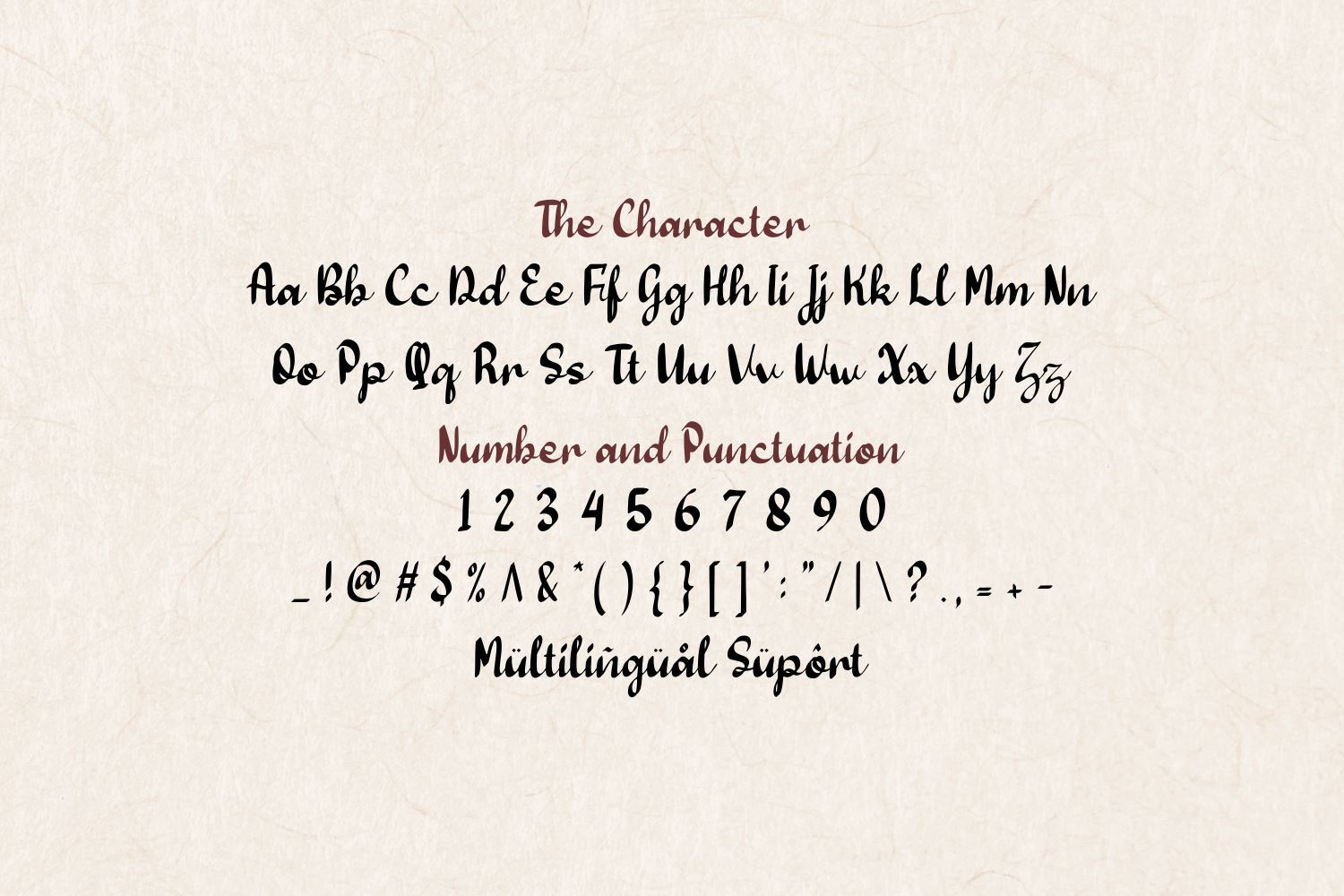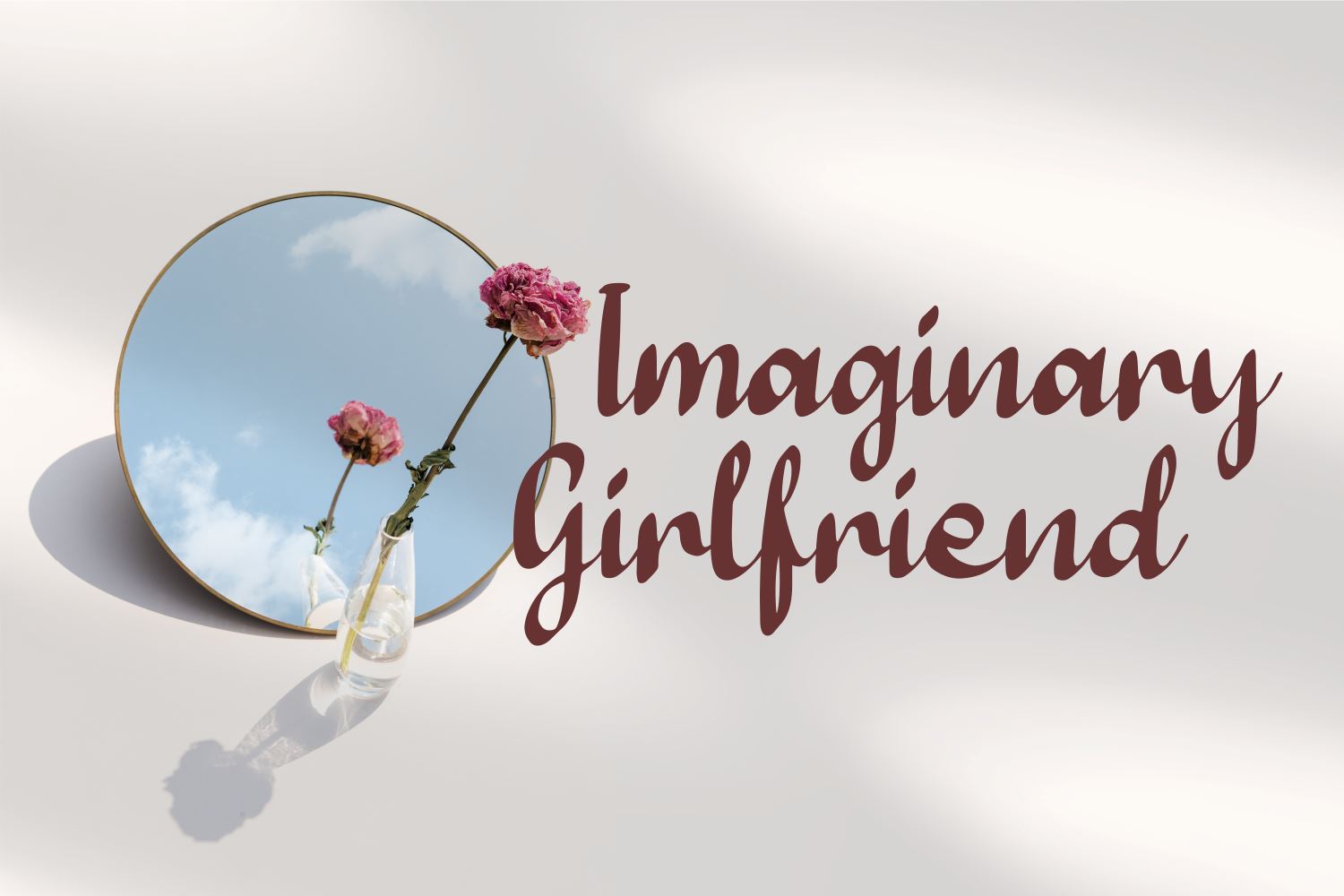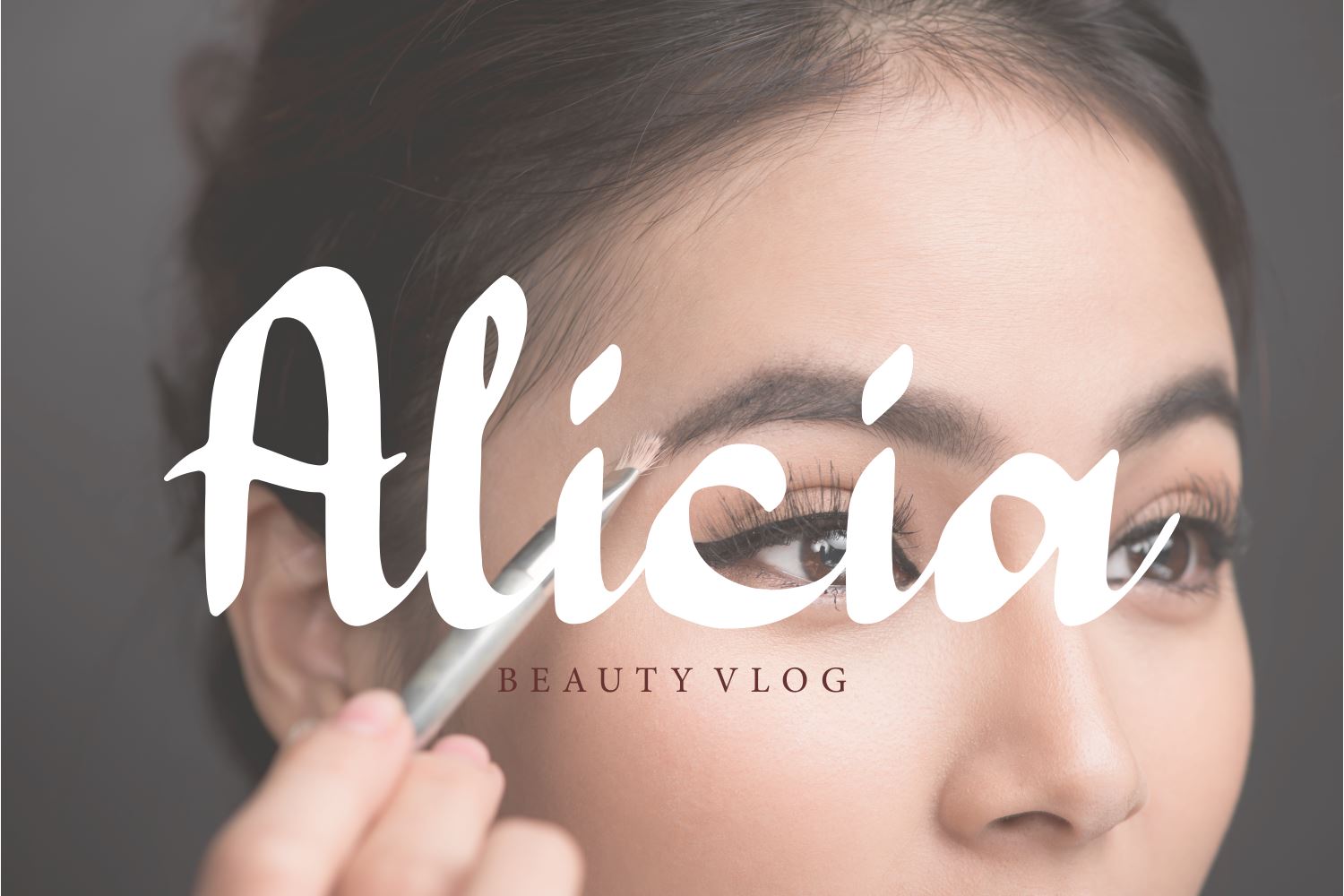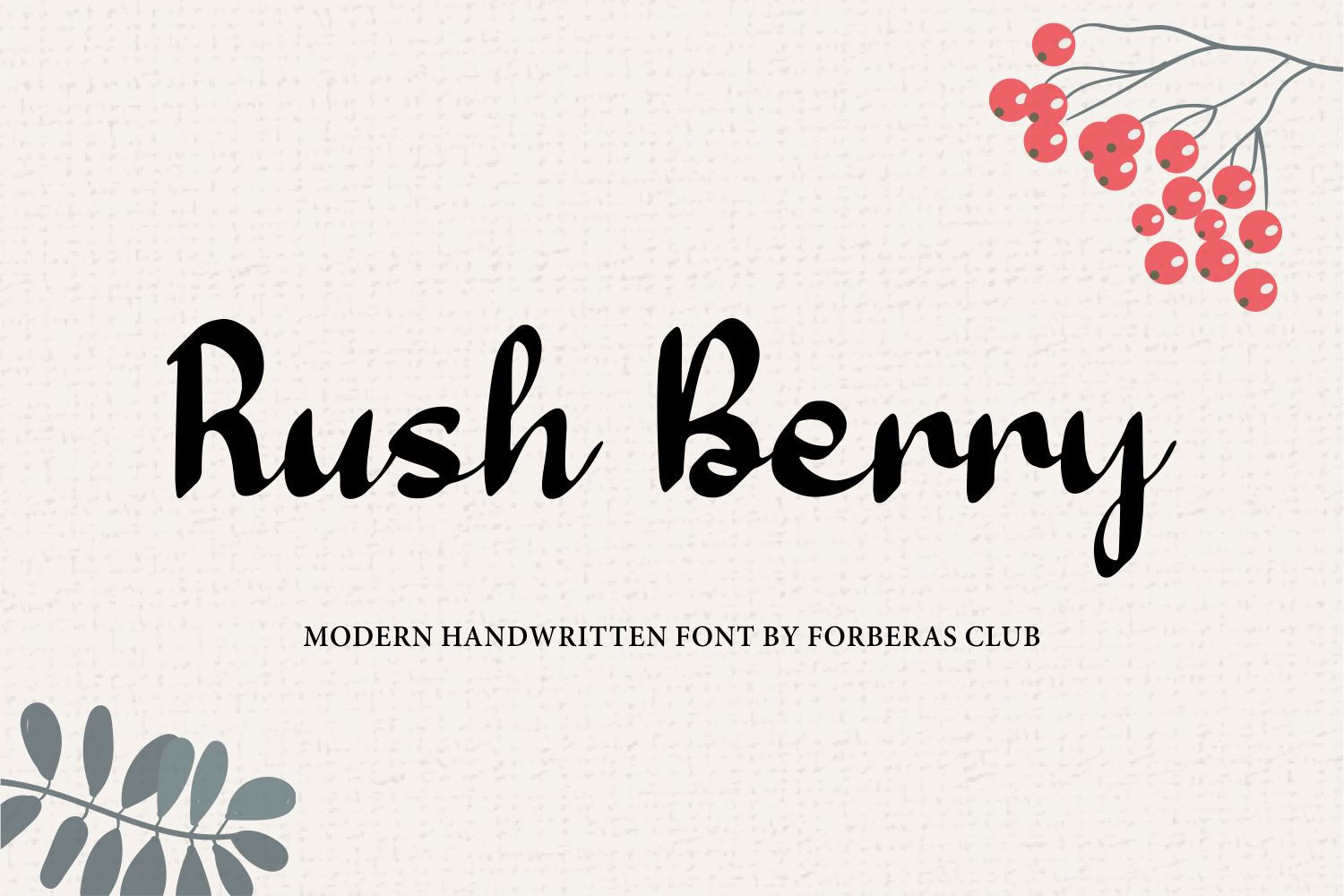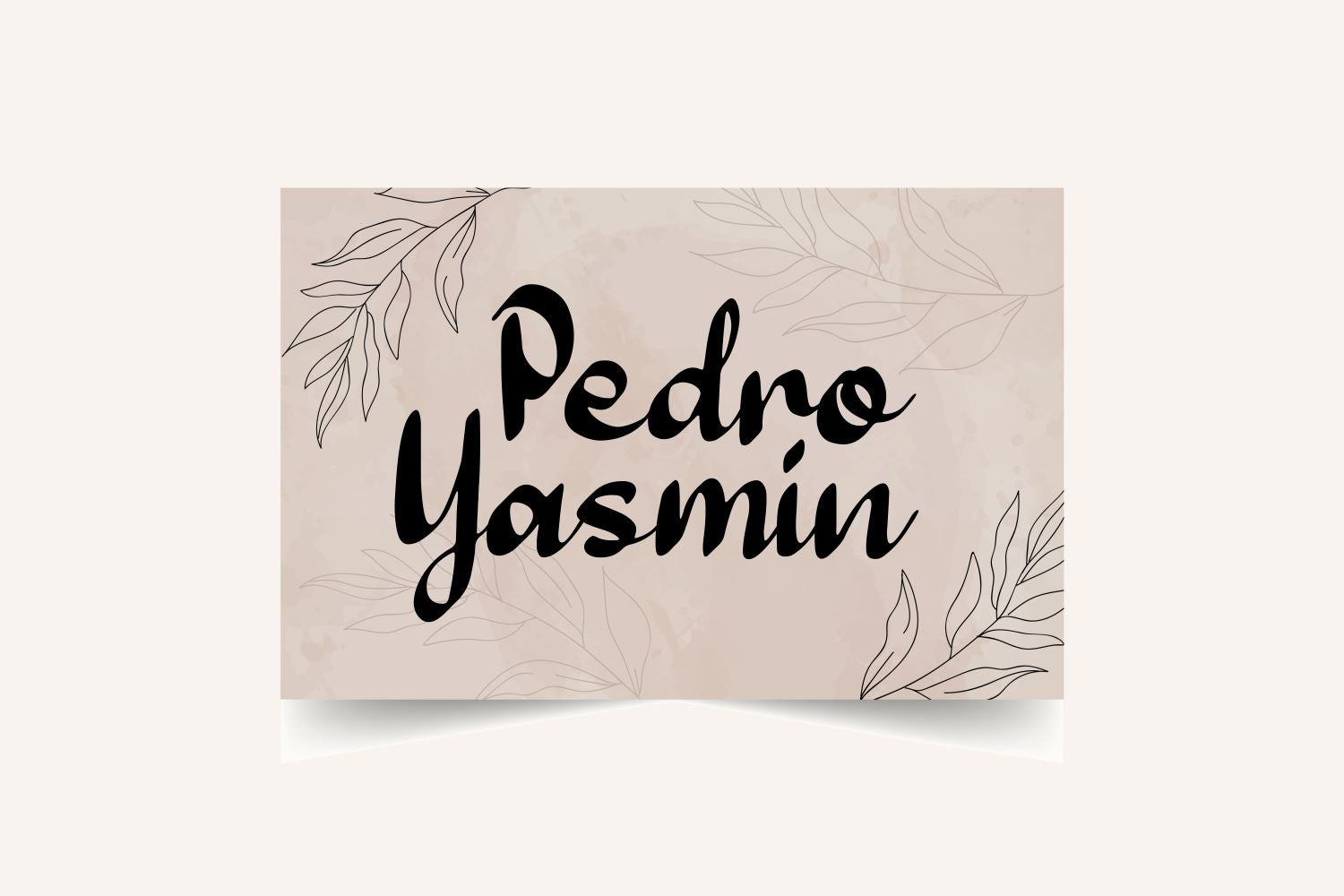
About Rush Berry
Introducing Rush Berry Font by Forberas Club Rush Berry is a Modern Handwritten Font. Rush Berry is perfect for book cover, product packaging, branding project, megazine, social media, kisd book fonts, or just used to express words above the background. This font includes TTF and OTF, This font also multilingual support.